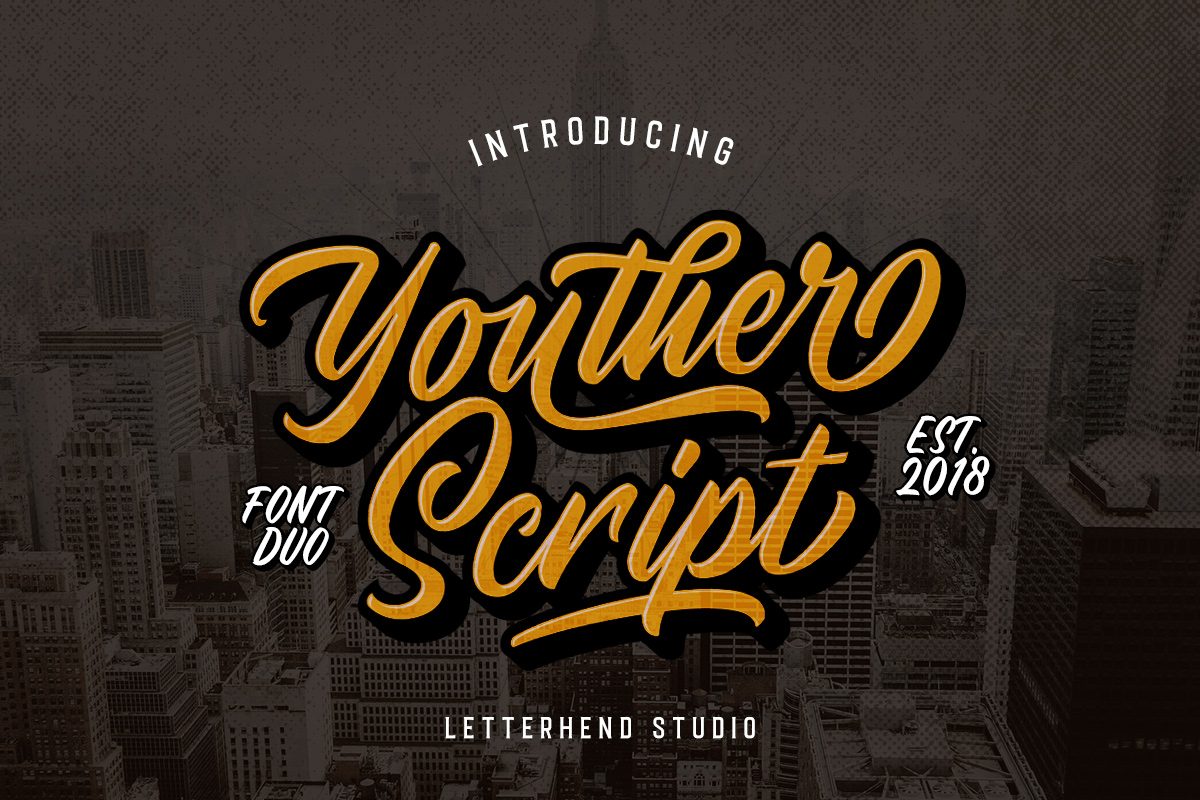
Youther Brush - Layered Font Duo
This Youther Brush Layered Font Duo is perfect for youth brand logos, skateboard graphics, streetwear designs, music festival posters, urban art projects, trendy café signage, creative studio branding, social media campaigns, modern apparel designs, and contemporary advertising materials.
What makes this Youther Brush Layered Font Duo exciting is its innovative layered system that creates stunning dimensional typography effects with authentic brush textures. The font duo features complementary styles that can be combined to produce eye-catching depth and visual interest. Its youthful energy and modern brush aesthetic make it ideal for brands targeting younger demographics who appreciate creative authenticity and contemporary urban style.
The Youther Brush Layered Font Duo family includes base and shadow layers with multiple stylistic alternates and special characters. This innovative font duo system provides designers with unlimited creative possibilities for crafting dynamic, multi-dimensional typography that stands out in today's competitive visual landscape.
Creative agencies and youth-focused brands consistently choose Youther Brush Layered Font Duo Free Download for projects requiring fresh, contemporary appeal with authentic handmade qualities. This font duo's distinctive layered approach perfectly captures the creative spirit and artistic expression that resonates with millennials and Gen Z consumers seeking genuine, innovative brand experiences.
The versatile layering system of Youther Brush Layered Font Duo allows designers to create customized effects by combining different layers and colors. Its authentic brush textures and natural stroke variations add organic personality while the layered structure provides the flexibility to achieve professional design outcomes across various applications.
Professional designers appreciate how Youther Brush Layered Font Duo combines artistic authenticity with technical innovation. The font duo's creative potential allows brands to communicate creativity, youth culture, and contemporary edge while maintaining the professional quality necessary for commercial applications.
The contemporary appeal of Youther Brush Layered Font Duo makes it particularly effective for brands embracing urban culture, creativity, and youth market trends. Its dynamic character creates immediate connections with audiences who value artistic expression and authentic creative content.
Whether developing branding for creative startups or designing promotional materials for youth events, Youther Brush Layered Font Duo Free Download delivers the innovative typographic foundation that contemporary brands need to communicate their creative vision and connect with younger audiences who appreciate authentic artistic expression and dimensional design creativity.